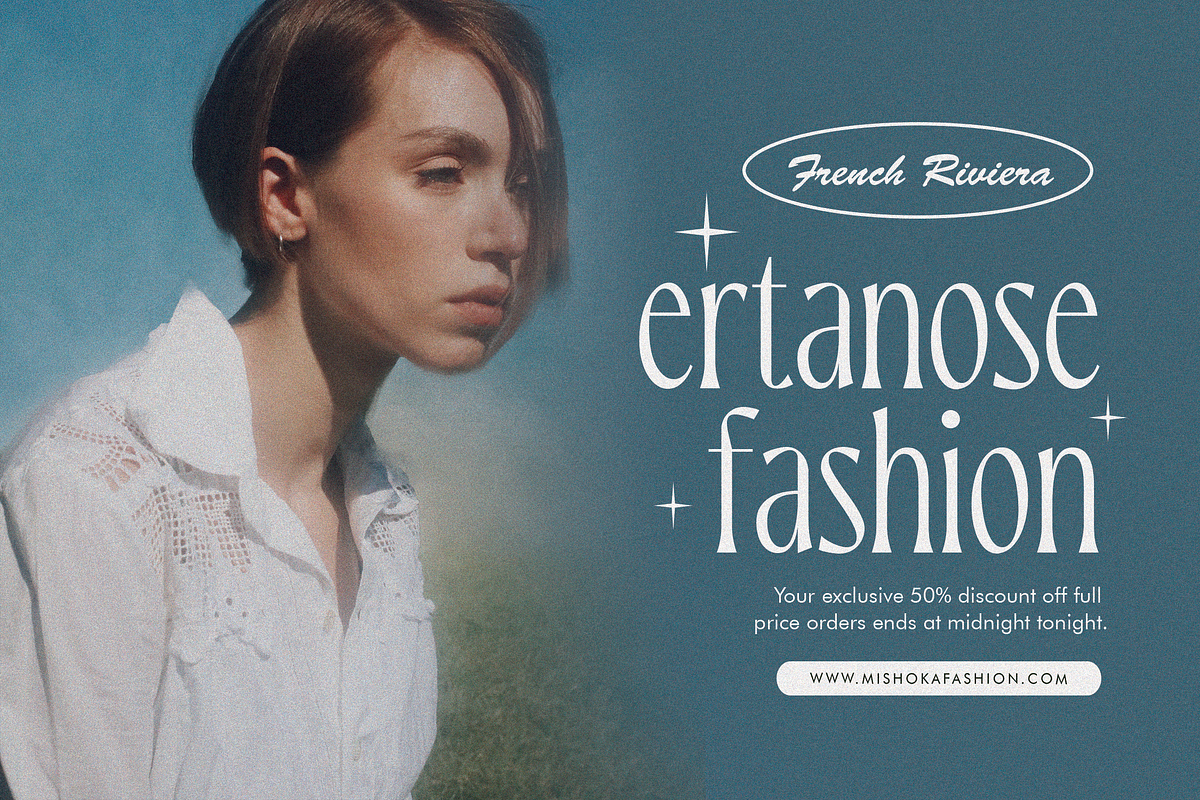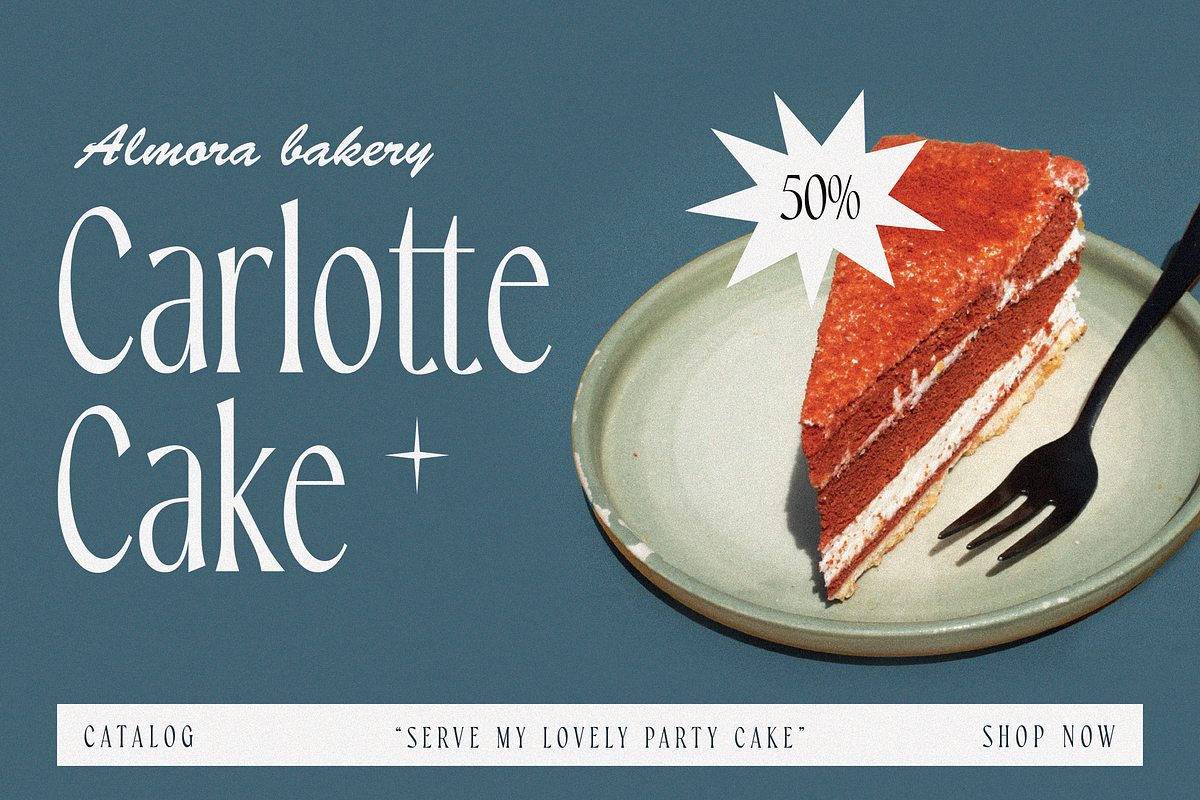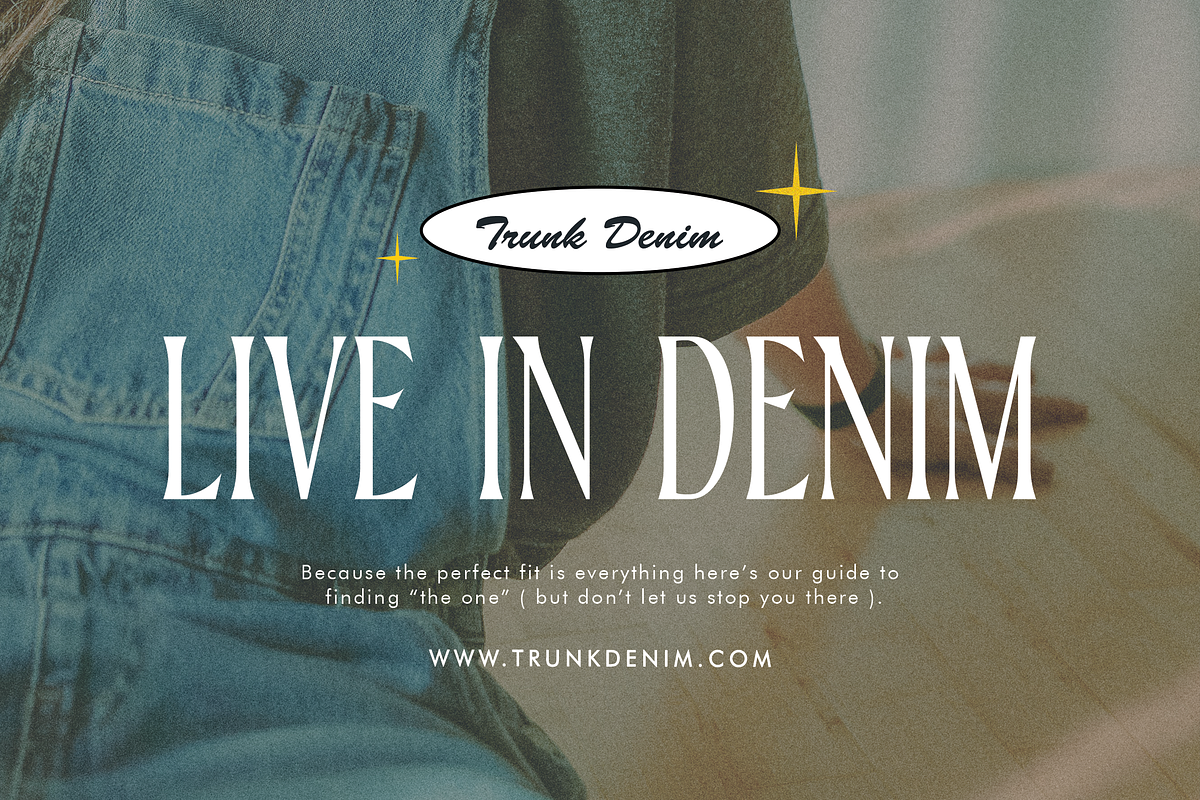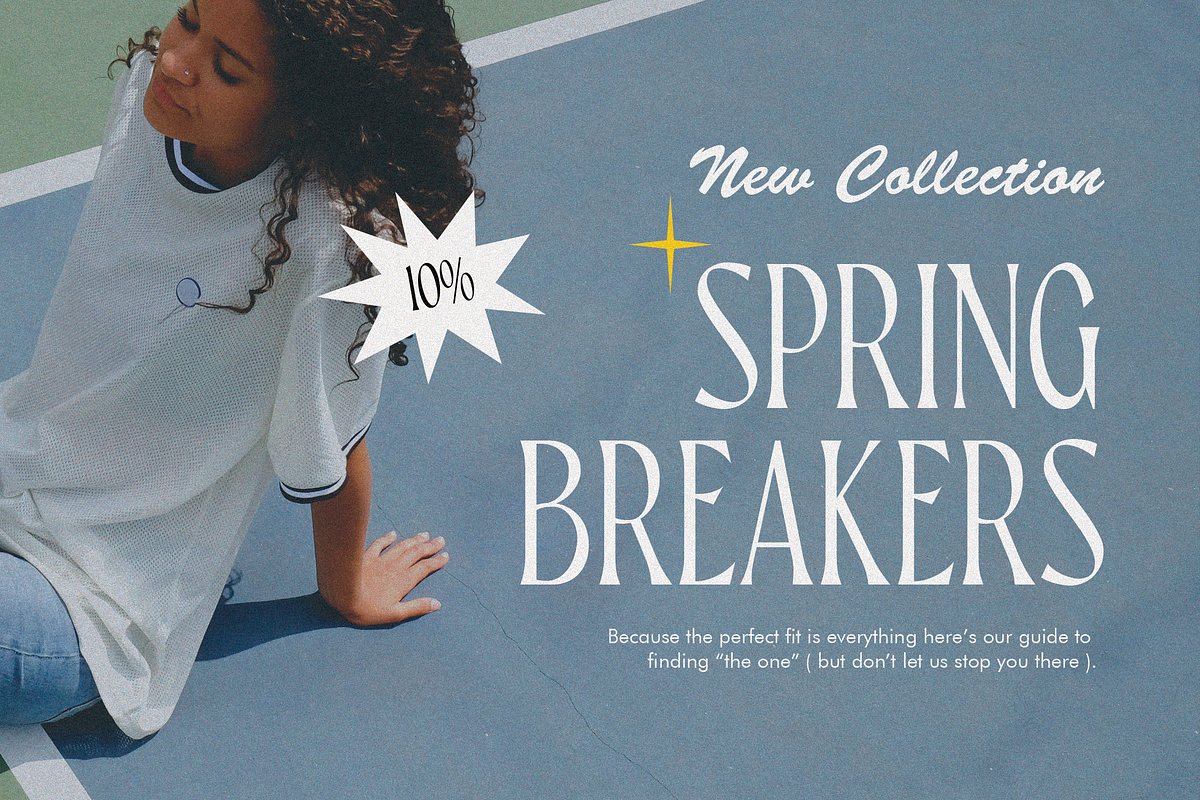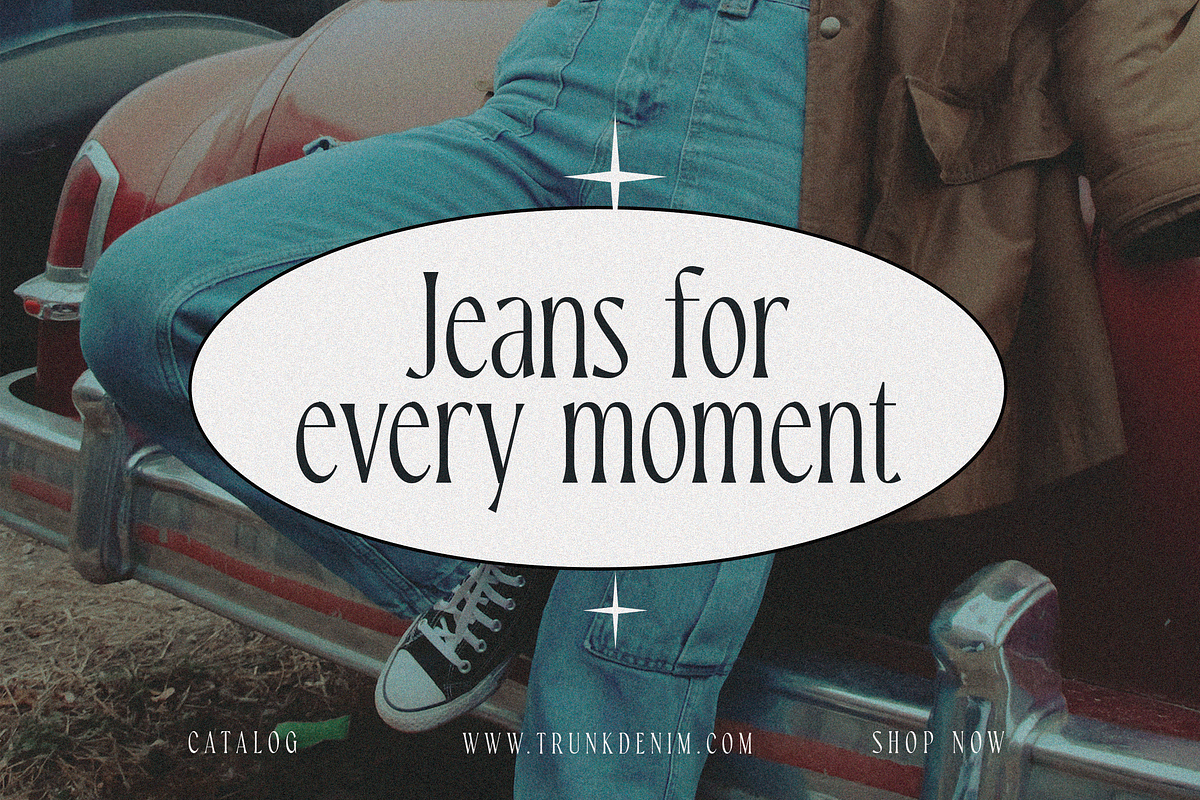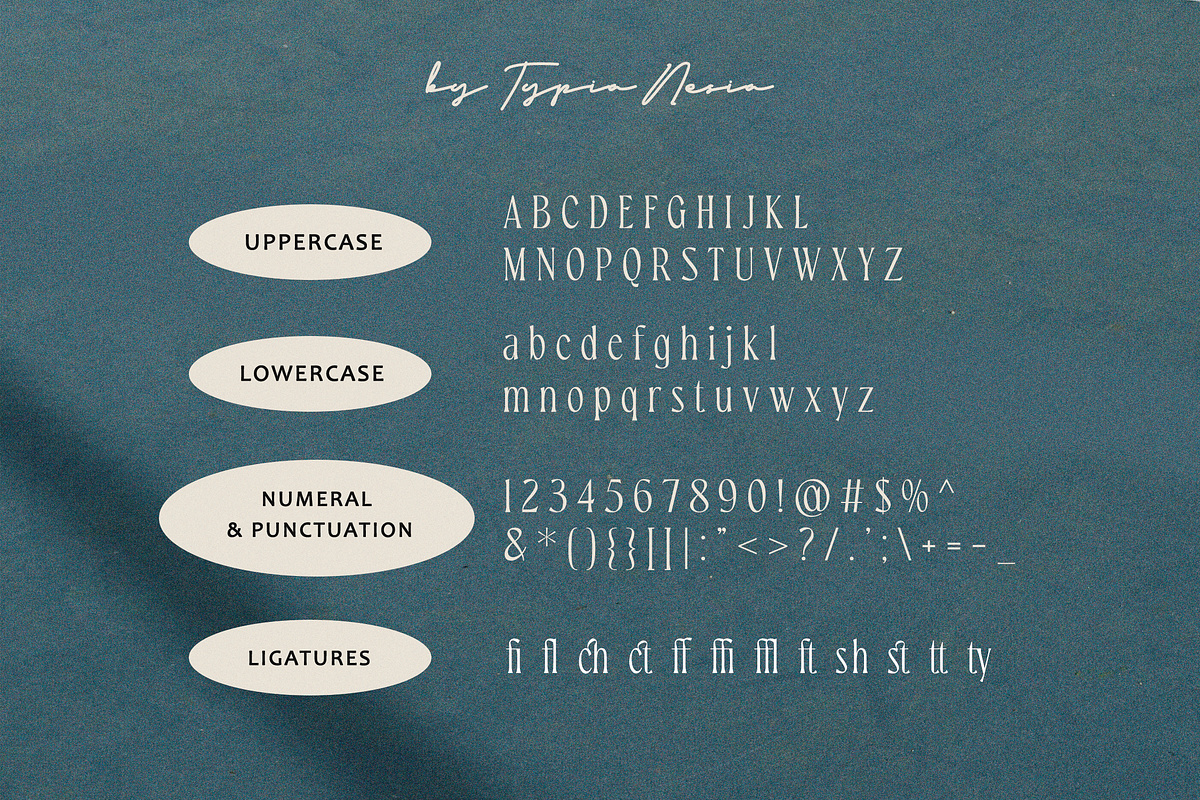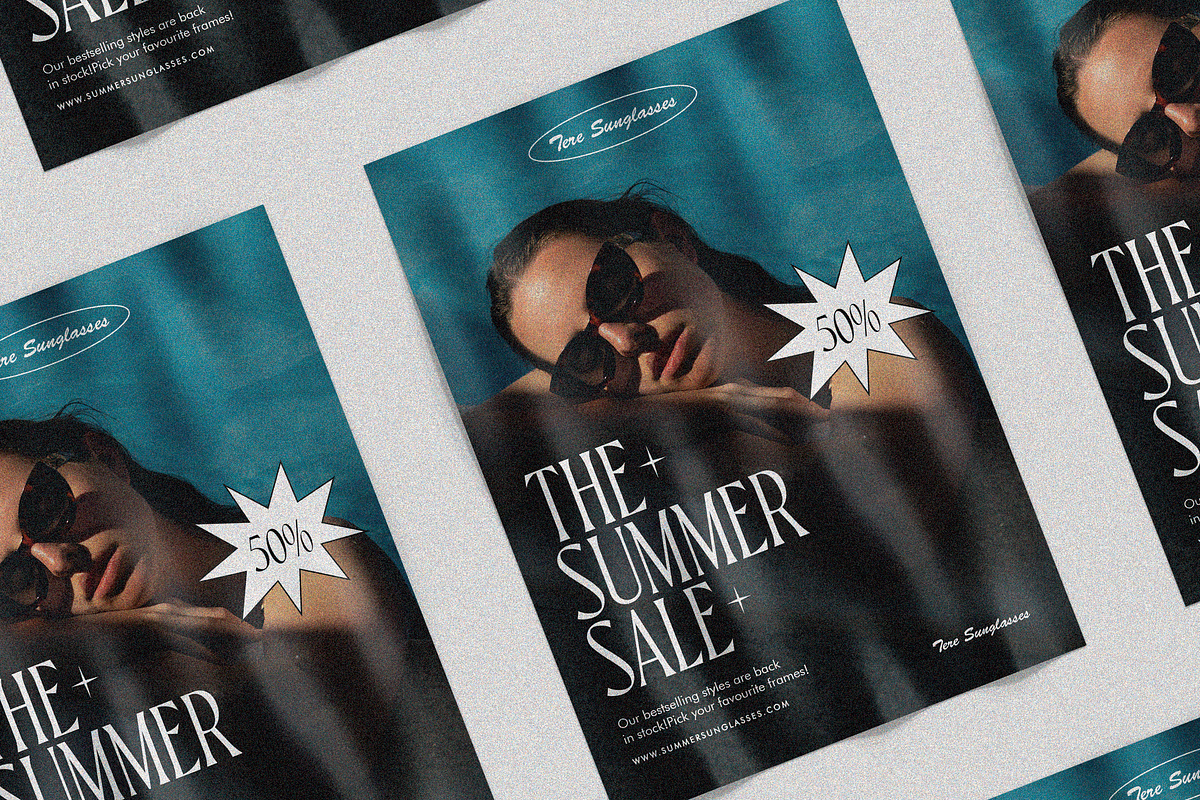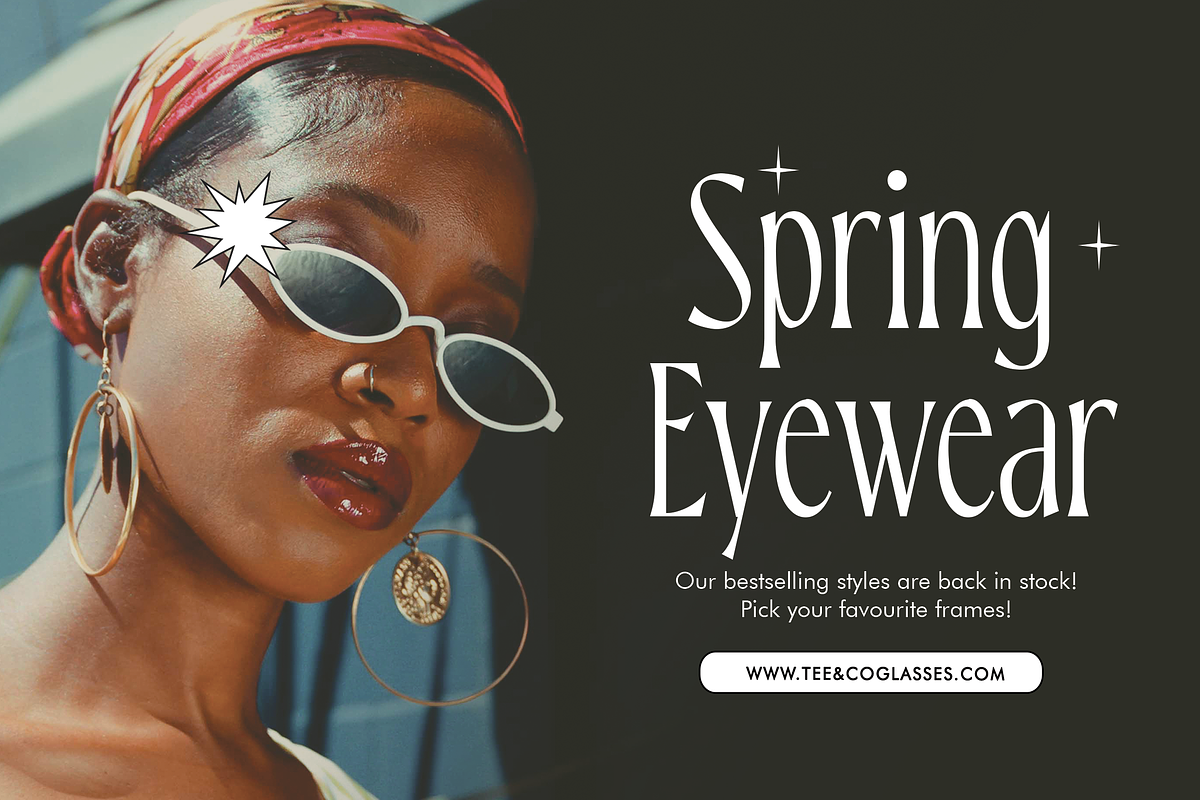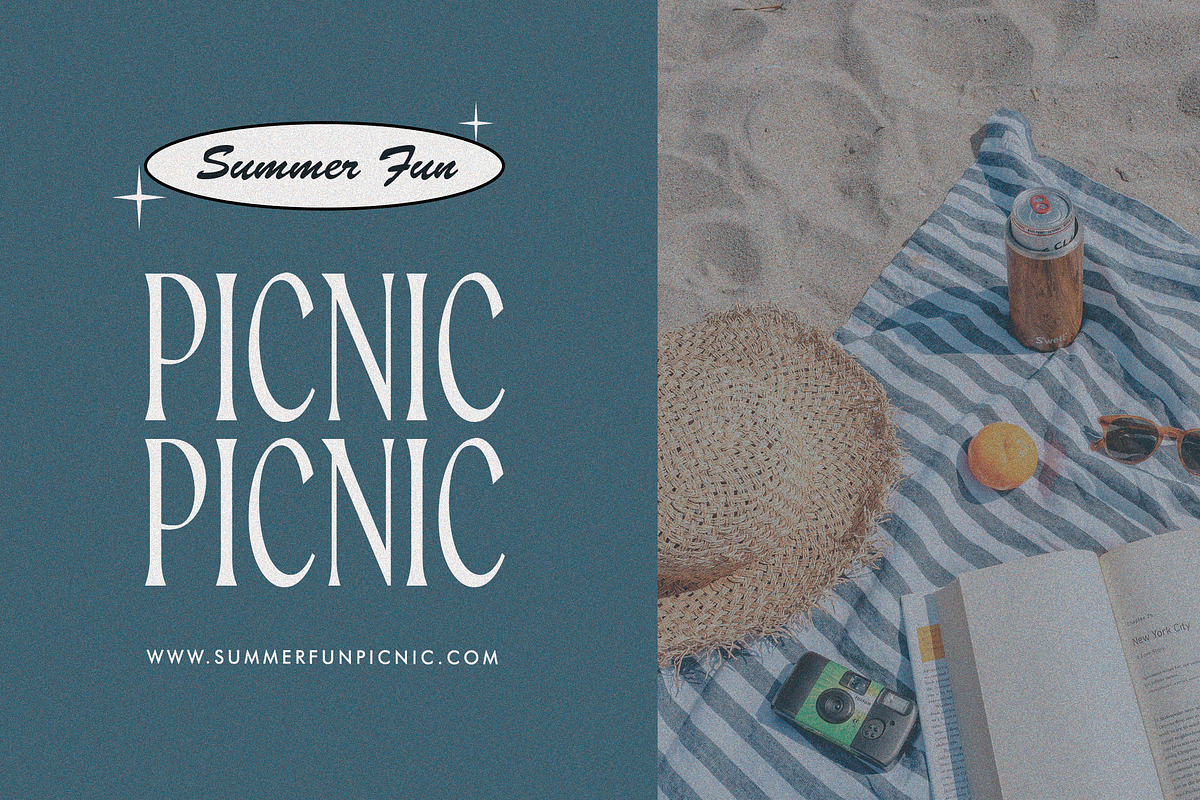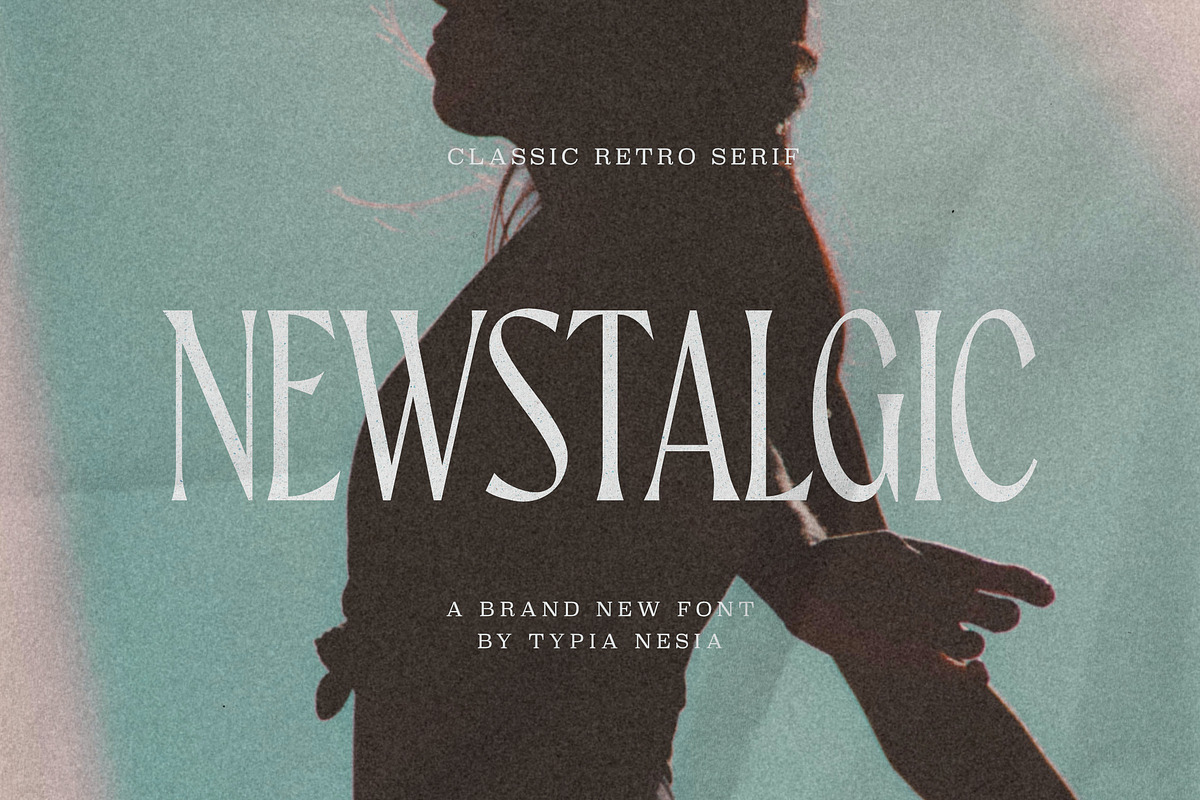
Newstalgic Condensed Serif
Newstalgic - Classic Retro Vibe Condensed Serif - Beauty Luxury Elegant Fancy Modern Font
Newstalgic Vintage Elegant Serif font is perfect for your up coming projects. Such as luxury logo and branding, classy editorial design, woman magazine, cosmetic brand, fashion promotional, art gallery branding, museum, historical of architectural, boutique branding, stationery design, blog design, modern advertising design, card invitation, art quote, home decor, book/cover title, special events and any more.